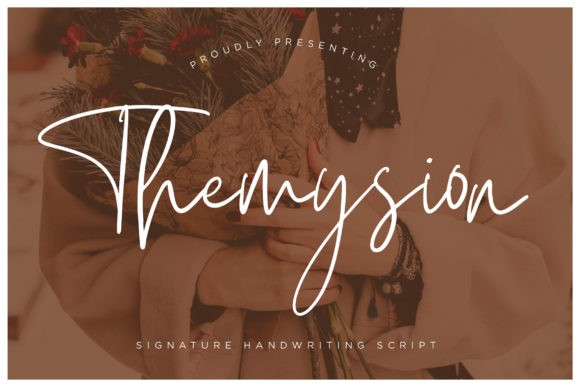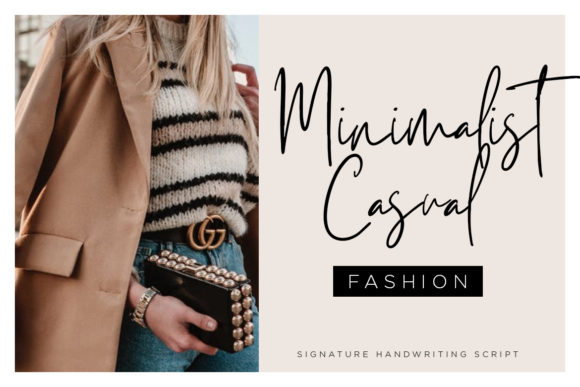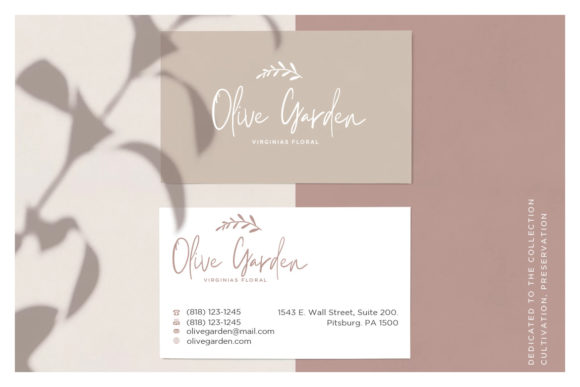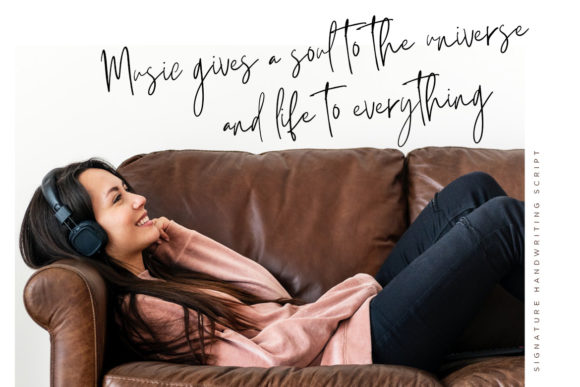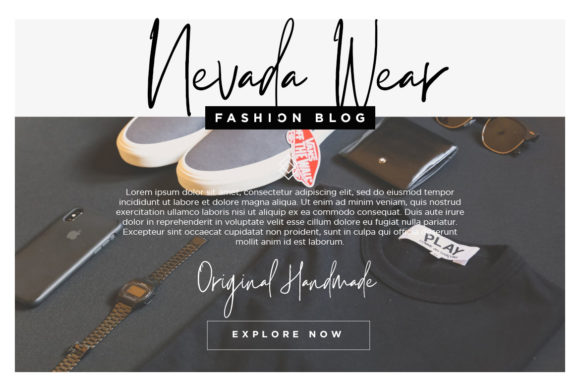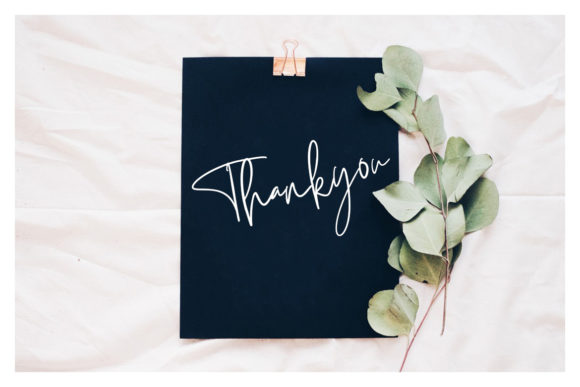
Themysion Font
About Themysion Font
Themysion is an extraordinary script font with a classy and elegant style, perfect for taking your crafting project to the next level!